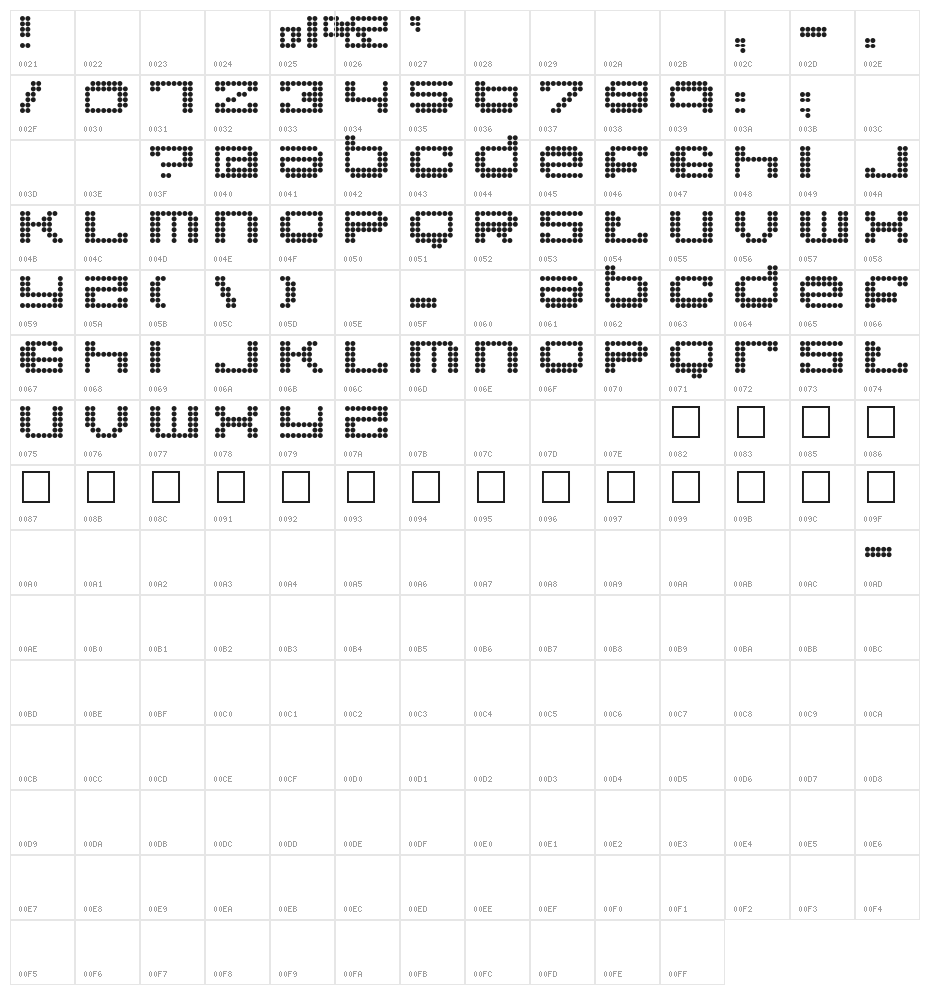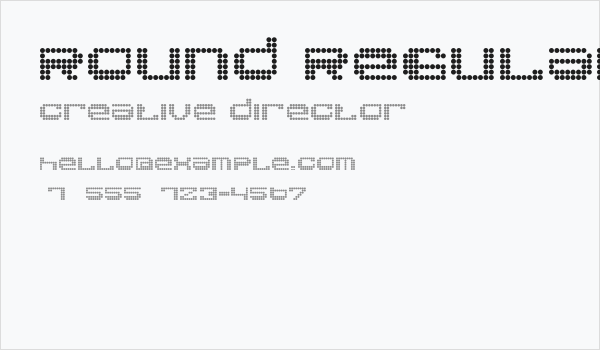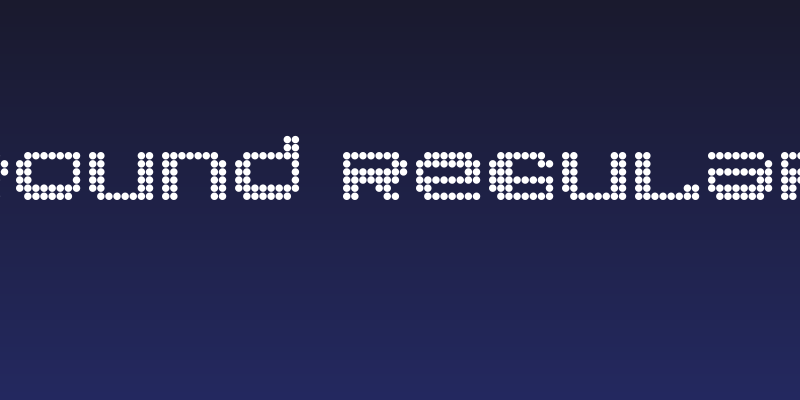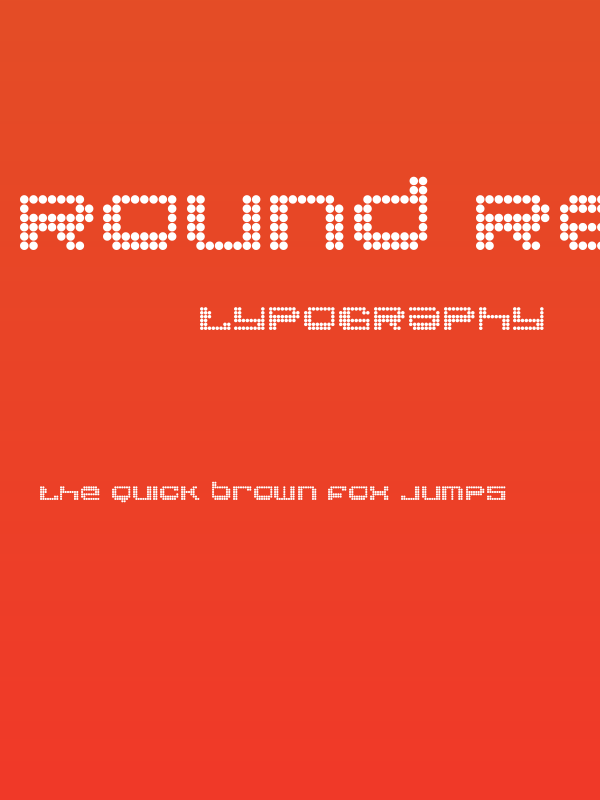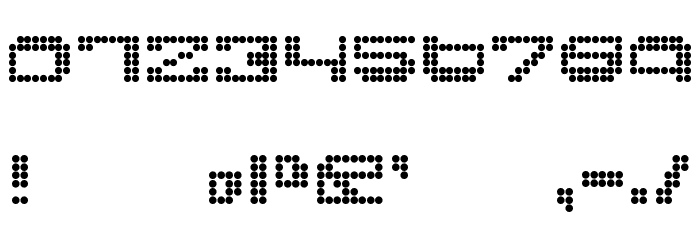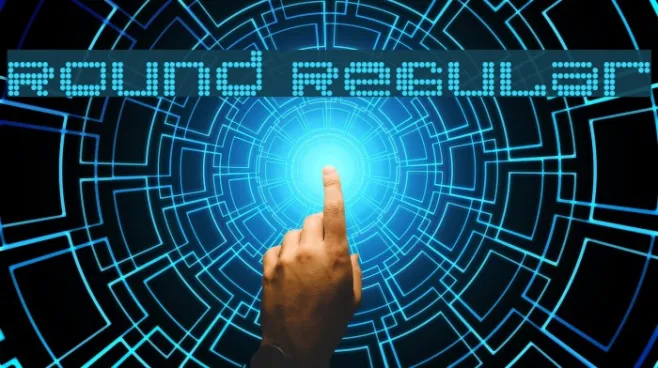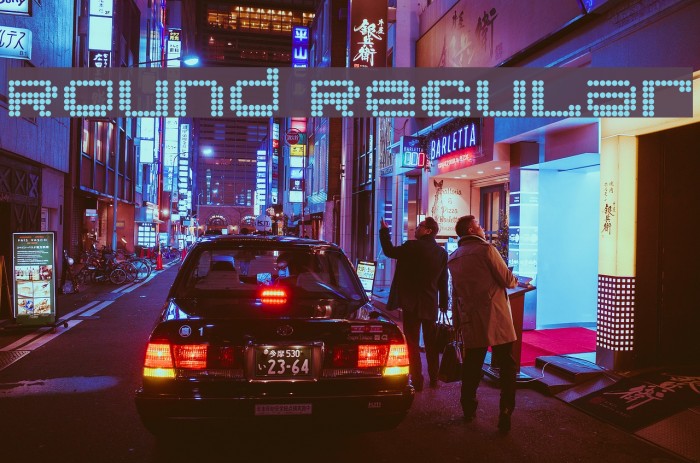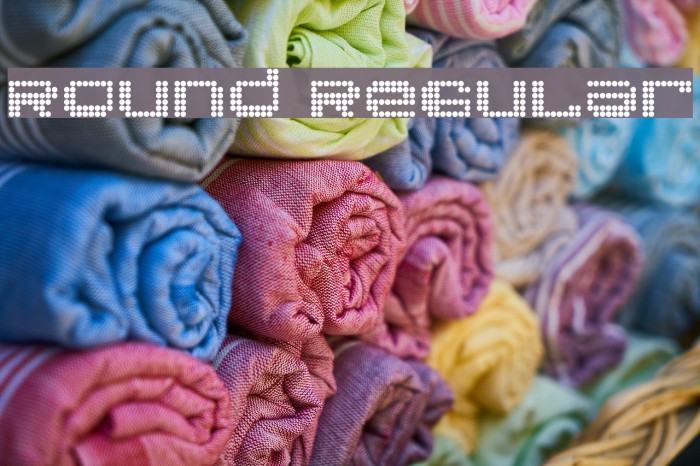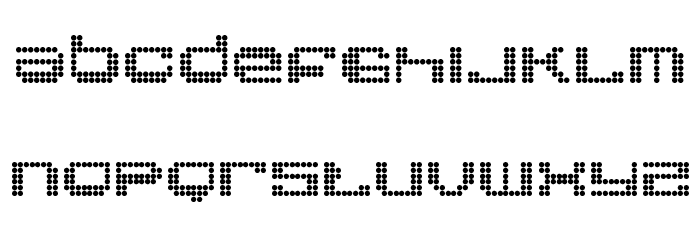
Round Regular Font
Round Regular Description
This font features a unique design composed entirely of small, evenly spaced dots forming each character. The style is geometric and modern, with a playful yet structured appearance. Each letter and number is crafted with precision, maintaining uniformity across the set. The characters are easily legible despite their unconventional design, making them suitable for creative and digital projects. The font includes both uppercase and lowercase letters, numbers, and a selection of special characters, all adhering to the dot-based theme.
| Proposed Projects | Ideal for digital displays, tech-themed designs, posters, and creative branding. |